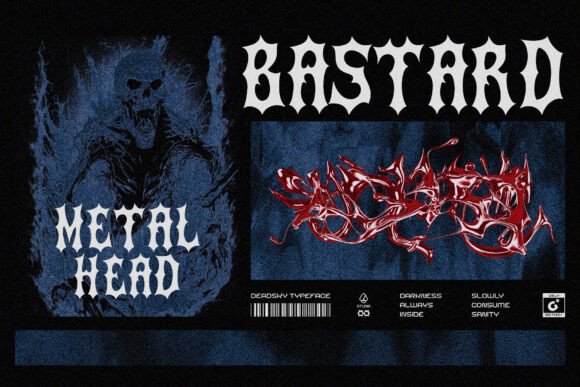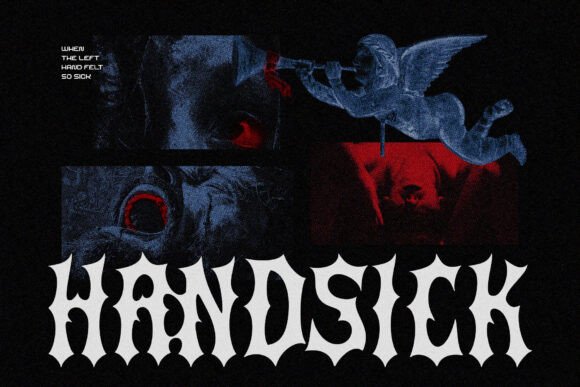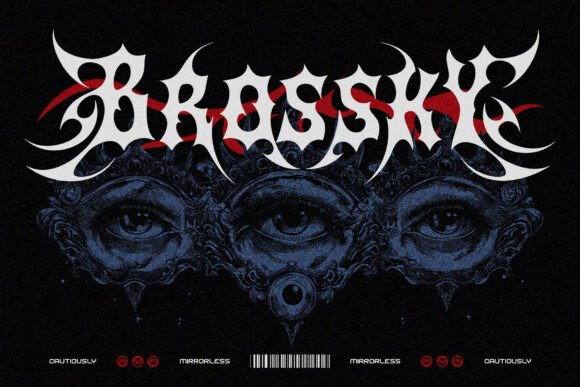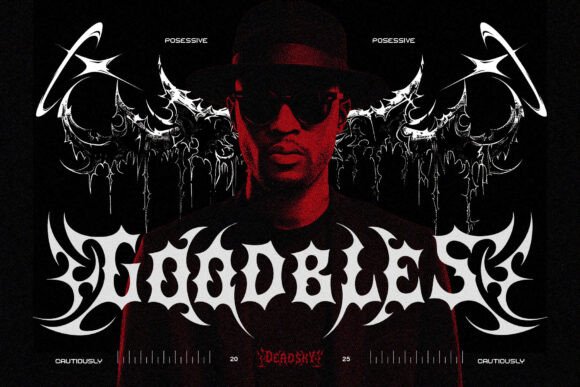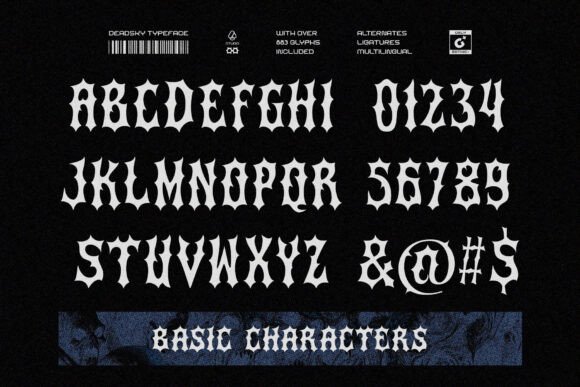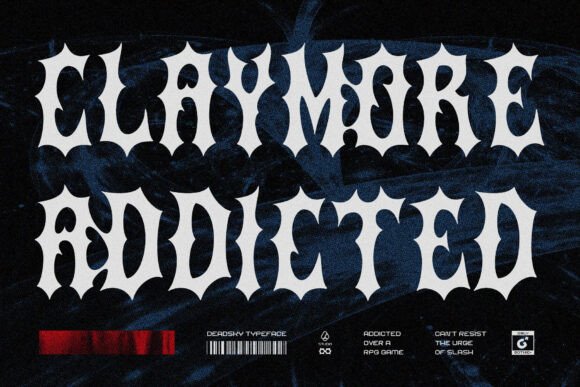
Unleash Your Creativity with Dead Sky Font: The Ultimate Darkletter Typeface
Step into the world of edgy typography with Dead Sky, a powerful darkletter typeface designed to stand out from the crowd. Inspired by punk culture and tribal motifs, this font exudes a rebellious spirit with its sharp thorn-like elements and dynamic swashes. Whether you’re designing for music, fashion, branding, or art, Dead Sky delivers a bold, aggressive style that commands attention.
The Inspiration Behind Dead Sky
Dead Sky font draws its inspiration from the raw energy of punk culture and the primal symbolism of tribal art. The result is a typeface that embodies a rebellious spirit, perfect for designers looking to create bold and daring visual statements. The sharp thorn-like elements and dynamic swashes in Dead Sky add a touch of ferocity to any design, making it ideal for projects that require a strong, edgy aesthetic.
Key Features of Dead Sky Font
- Sharp Thorn-Like Elements: The distinctive thorn-like elements in Dead Sky give it a unique, aggressive look that’s perfect for creating bold designs.
- Dynamic Swashes: The dynamic swashes in Dead Sky add a touch of movement and energy to your designs, making them perfect for projects that require a sense of dynamism.
- Punk-Inspired Aesthetic: Dead Sky’s punk-inspired aesthetic makes it perfect for music, fashion, and art projects that require a bold, rebellious look.
- Tribal Motifs: The tribal motifs in Dead Sky add a primal, symbolic element to your designs, making them perfect for projects that require a strong, bold aesthetic.
Use Cases for Dead Sky Font
Dead Sky font is perfect for a wide range of design projects, including:
- Music Design: Use Dead Sky to create bold, eye-catching album covers, posters, and flyers that showcase your music’s edgy personality.
- Fashion Design: Add a touch of rebellion to your fashion designs with Dead Sky, perfect for creating bold logos, labels, and branding materials.
- Branding and Advertising: Use Dead Sky to create bold, attention-grabbing ads and branding materials that showcase your company’s edgy personality.
- Art and Illustration: Dead Sky is perfect for artists and illustrators looking to add a bold, dynamic element to their work.
Tips for Using Dead Sky Font
To get the most out of Dead Sky font, here are a few tips to keep in mind:
- Experiment with Different Sizes: Dead Sky looks great in a variety of sizes, from small captions to large headlines. Experiment with different sizes to find the perfect fit for your design.
- Pair with Contrasting Fonts: Pair Dead Sky with contrasting fonts to create visual interest and add depth to your designs.
- Use Swashes and Alternates: Take advantage of Dead Sky’s dynamic swashes and alternate characters to add movement and energy to your designs.
Dead Sky font is a powerful darkletter typeface that’s perfect for designers looking to create bold, edgy designs. With its sharp thorn-like elements, dynamic swashes, and punk-inspired aesthetic, Dead Sky delivers a rebellious spirit that’s sure to command attention. Whether you’re designing for music, fashion, branding, or art, Dead Sky is the perfect choice for projects that require a bold, aggressive style.